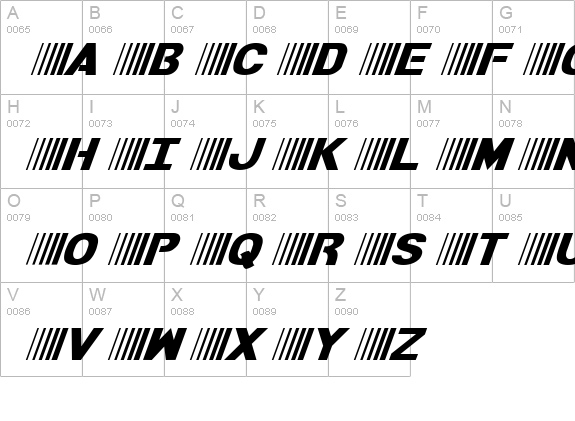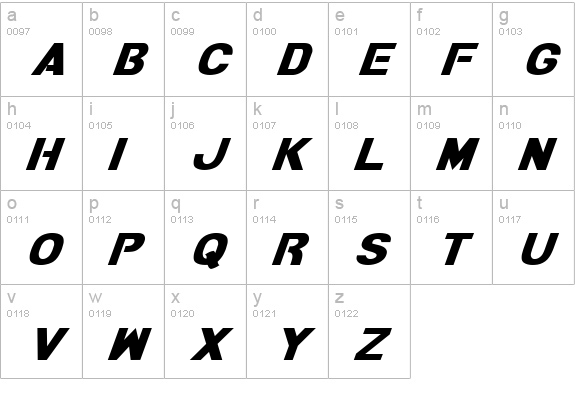
Bamf Italic Font Details
Bamf Italic is a distinctive, italic variant in the Bamf typeface family \xE2\x80\x94 well suited to design and typography projects.
Bamf Italic is a sleek and stylish font that exudes sophistication and elegance. With its slanted and modern design, this font is perfect for adding a touch of class to any project. Whether you're designing a website, creating a logo, or working on a print project, Bamf Italic is sure to make a statement. The best part? Bamf Italic is available for free download at FontsMarket.com. This means you can elevate your designs without breaking the bank. Don't miss out on this fantastic opportunity to enhance your projects with the timeless beauty of Bamf Italic font. Download it today and let your creativity shine!